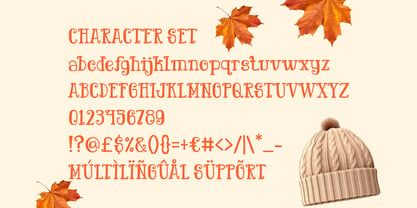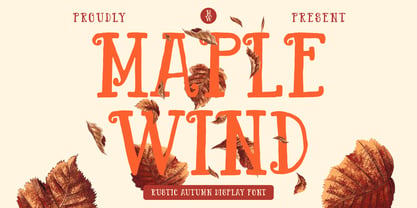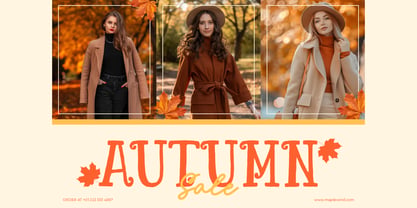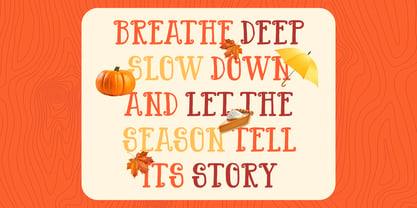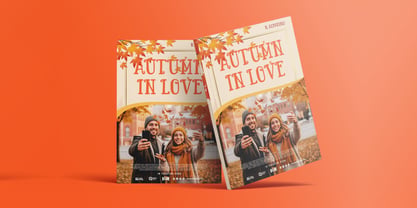
Maple Wind
Die Schriftfamilie Maple Wind wurde von Yesie Erma Yunita entworfen und von Shanaf veröffentlicht. Maple Wind enthält 1 Stile. Mehr über diese Familie
Maple Wind Rustic Autumn Display Font offers a handcrafted look that feels warm, seasonal, and expressive. The letters have tall proportions with slightly uneven strokes that create a natural handwritten energy. Rounded terminals soften the structure, while small ornamental curls add a subtle rustic flair. The moderate thickness keeps each glyph readable, yet still gives the design a relaxed handmade mood. This balance of structure and character makes the font ideal for storytelling themes, seasonal branding, and cozy design settings. Maple Wind Rustic Autumn Display Font captures the spirit of autumn through its organic forms and flowing curves, giving every layout a friendly and familiar tone. The font carries a charming vintage influence that blends well with modern display needs. This typeface supports many creative uses, including logos, branding sets, posters, film titles, magazine layouts, book covers, packaging, invitations, and seasonal promotions. Its playful structure works well for crafting projects, greeting cards, stickers, and social media graphics. The tall and airy letterforms help headlines stand out with personality, while the handmade feel adds authenticity to storytelling visuals. Designers can use it to emphasize warmth, comfort, and seasonal themes. Its unique shapes allow longer words to stay engaging, and its display style adds rhythm to decorative compositions. The font provides a strong seasonal identity without losing versatility, making it suitable for lifestyle brands, boutique businesses, handmade products, and festive campaigns.